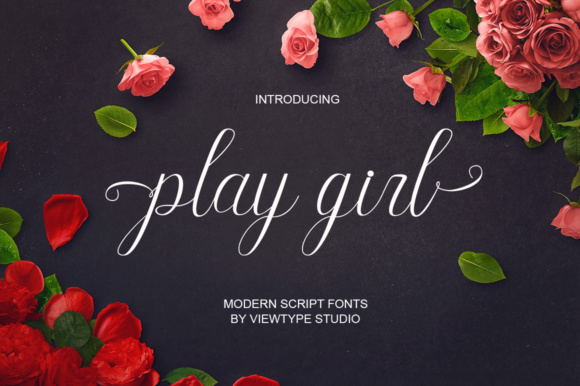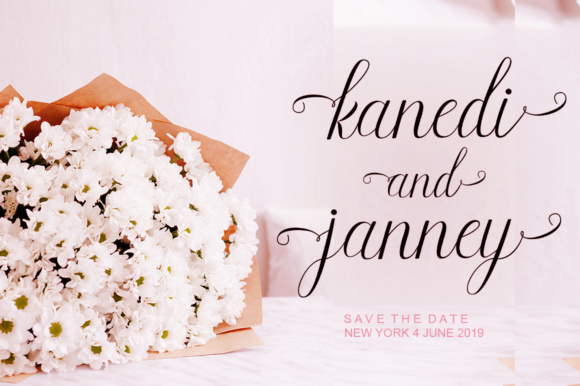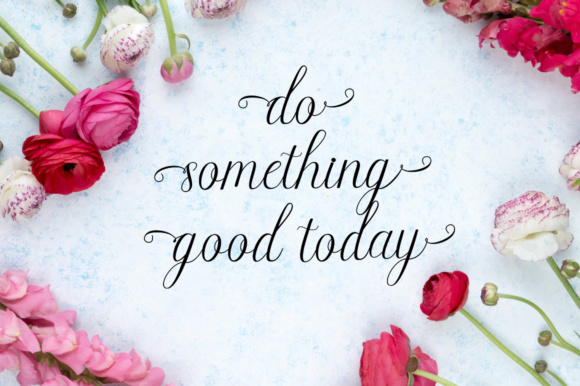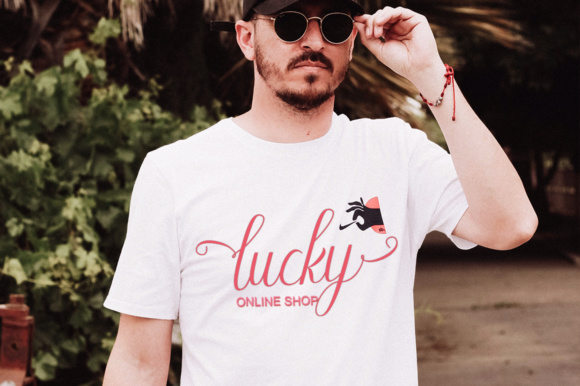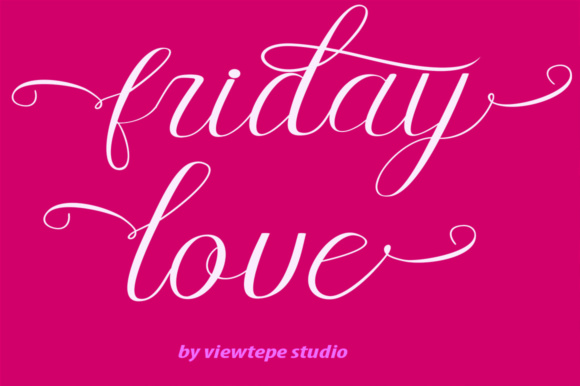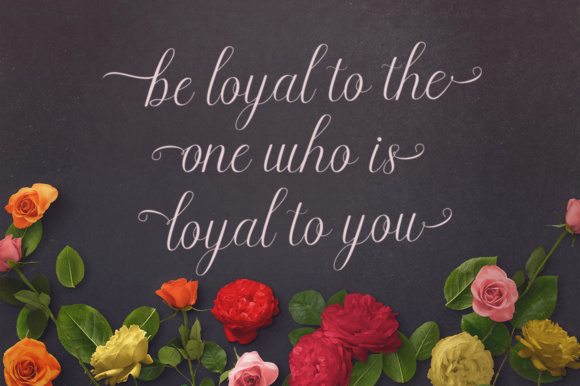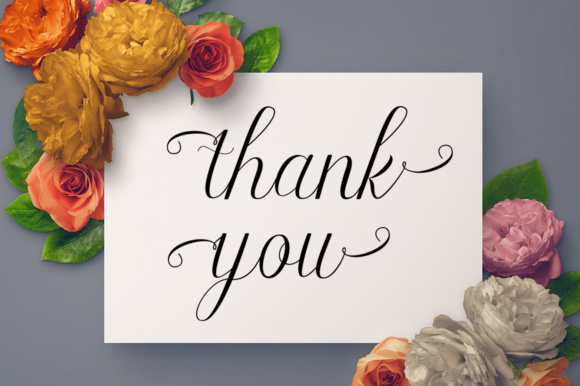
HomeScript FontsPlay Girl Font Script Fonts Play Girl Font FacebookXPinterestWhatsApp Play Girl Font Poster 2 Play Girl Font Poster 3 Play Girl Font Poster 4 Play Girl Font Poster 5 Play Girl Font Poster 6 Play Girl Font Poster 7 About Play Girl Font The Play girl is a modern, handwritten script font. It has elegant letters and a dancing baseline. DOWNLOAD ON CREATIVE FABRICAThis font is sold and delivered by Creative Fabrica. Font Canyon may earn a commission if you buy through this link. People also explored Corin Stacy Font Kasih Bunda Font Way to the Heart Duo Font YWFT Agostina Mellow Font Hamilton Font Sparkling Font Glatang Script Font Sallina Font 357 0 TagsPlay Girl Font Previous articleStarlive Script FontNext articleDark Lunatic Duo Font LEAVE A REPLY Cancel reply Comment: Please enter your comment! Name:* Please enter your name here Email:* You have entered an incorrect email address! Please enter your email address here Website: Save my name, email, and website in this browser for the next time I comment. Personal Use Free Just Smile Personal Use Free Read more about this font Ashay Personal Use Free Read more about this font Mullia Personal Use Free Read more about this font Loopina Personal Use Free Read more about this font BLOG Fonts That Capture the Spirit of New York City New York City is more than just a place—it’s an experience, a rhythm, a visual language... Top 10 Handwritten Fonts That Elevate Your Designs The 10 Best Handwriting Fonts to Add Personality to Your Designs Best Fonts for T-Shirt Design – Top 2025 Picks